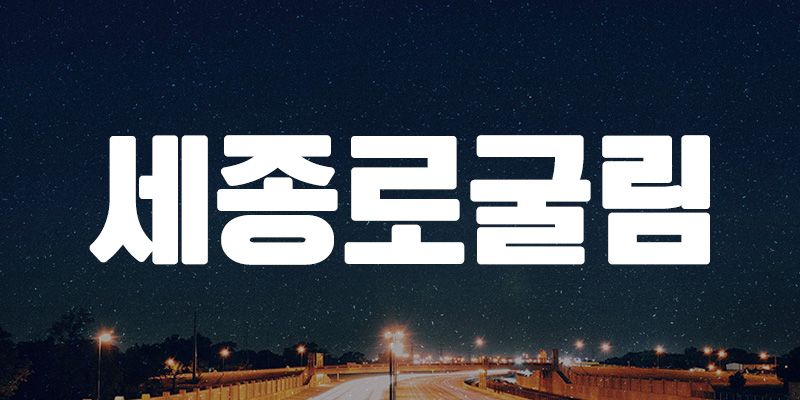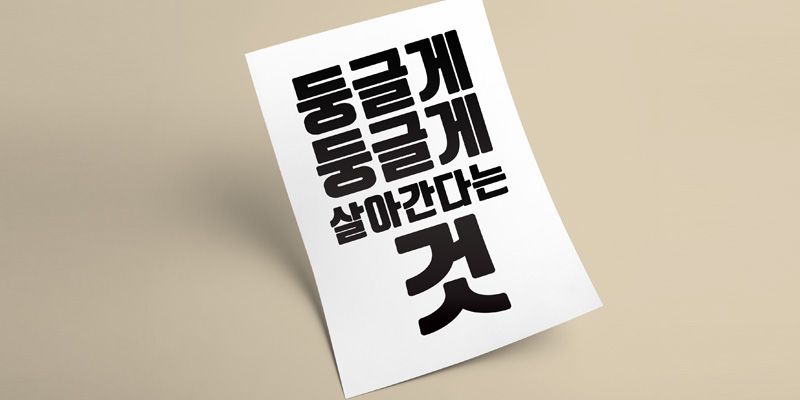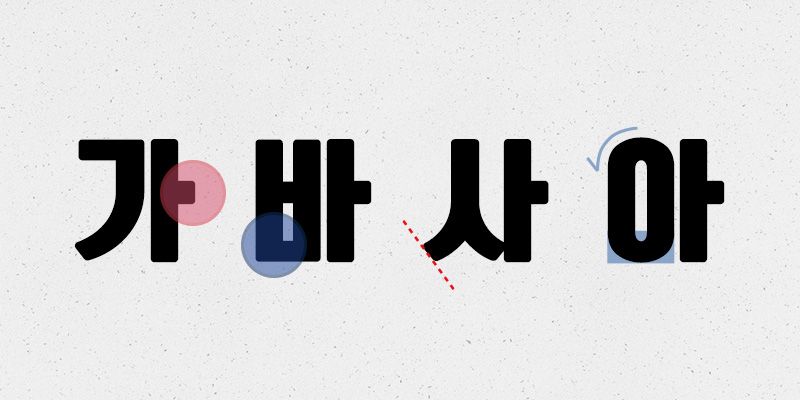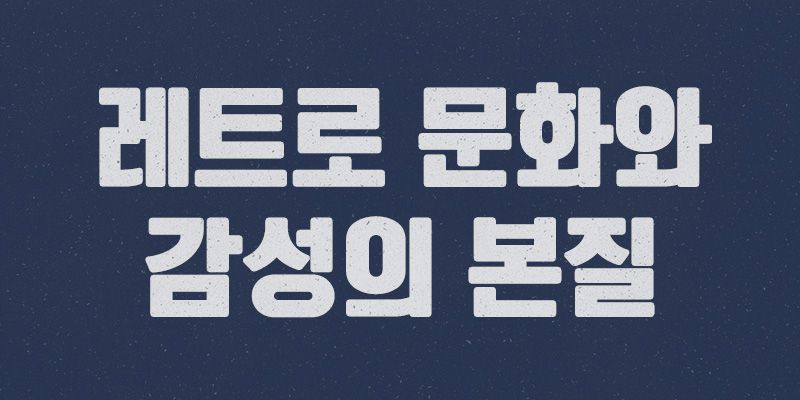
RixSejongroGulim is a font that implements a retro feel to the full square structure in the Road-name series.
The Road-name series was inspired by the diverse fonts of the 1970s and 1980s, and was designed into way that recalls the retro feel of those times. Based on RixSejongro, this font applies the soft feel of the Gulim font. While sharing fonts and modules with other 도로 series fonts, it uses differently shaped strokes for vowels and consonants, allowing it to be used in different circumstances.